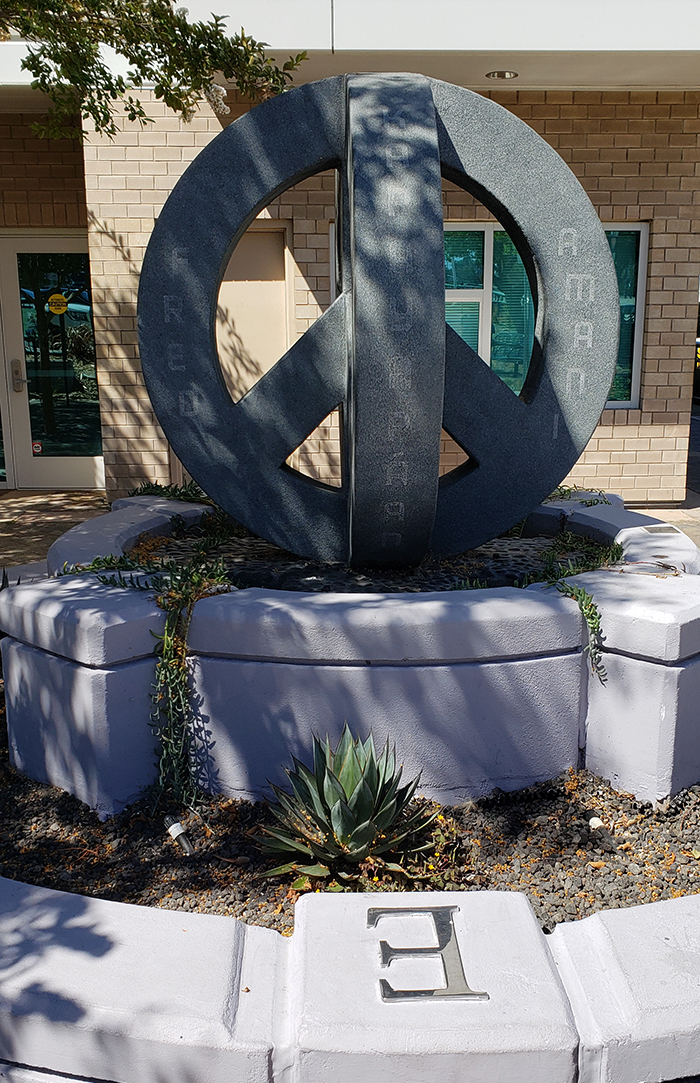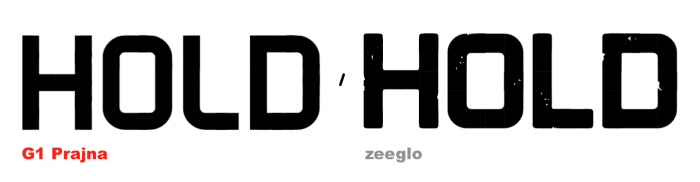
• Prajna is a Sanskrit word meaning wisdom, understanding, insight. Simple on the outside, with some depth on the inside. Looks like it could be 1:1 bricks, but it actually uses a 1.5 sized brick width, giving it additional curvature that wouldn't be possible on a 1:1 scale.
I was supposed to release this a year ago, synchronous to the Peace 2.0 sculpture that was publicly unveiled which utilized Prajna to spell out "Peace" in 12 different languages. I like to think that since the sculpture was written with Prajna, it has a literal connection with wisdom, understanding and insight. I release it now with the hope that you may write with Prajna of your own.
Nice font, Master. The difference between 1.5:1.5 arcs and the usual 1:1 ones is most evident in this comparison between this font and a similar looking other that I did.
BTW, this font in use can be seen a little better in one of the great picts illustrating your interview for the Gridfolk section of FontStruct. And I like that sculpture a lot, I hadn't said it before.